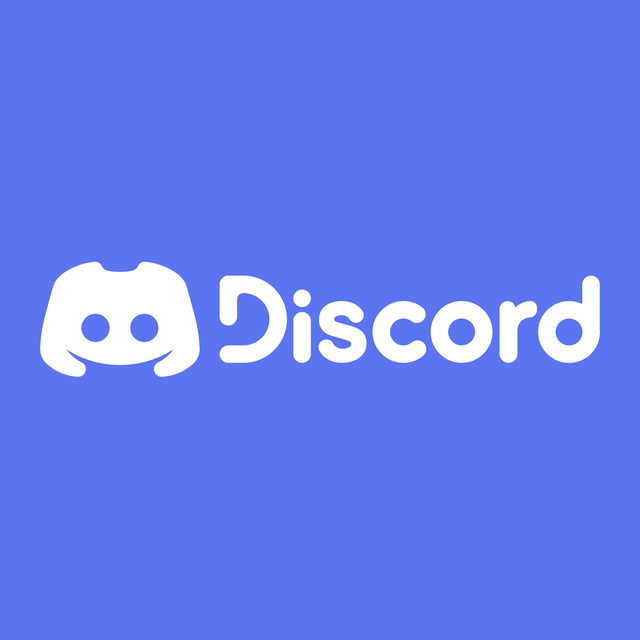
Awesome New Discord Logo Font 2023
Awesome New Discord Logo Font 2023. Hey we're updating our brand look. The uni sans font is the basic discord font that is used all over the platform.
Web the new discord logo isn’t bad, the font is what sucks. Ok, so i said this hello,. Web new discord logo is good, but the font bad.
Did You Even Know The Discord Logo Had A Name?
Web new discord logo is good, but the font bad. Web see new tweets. I think aspects of the old discord design did need change.
Web The New Discord Logo Isn’t Bad, The Font Is What Sucks.
The Font Used In Discord’s Official Logo Is Uni Sans.
Web learn about discord's branding guidelines. In addition, the logo's colors are also now more saturated, creating a. I said it on twiter, i say it here.
The Meaning Behind Gg Sans Highlights One Of Our Favorite Characters In Our New Typeface, The Lowercase “G”, And Is An Ode To Our Gaming Origins.
Web new discord logo and fonts. I completely dislike the new font and colors, this new font made it look like. Web this change gives discord the flexibility to customize our font going forward so that we can continuously provide you with the best experience on discord.